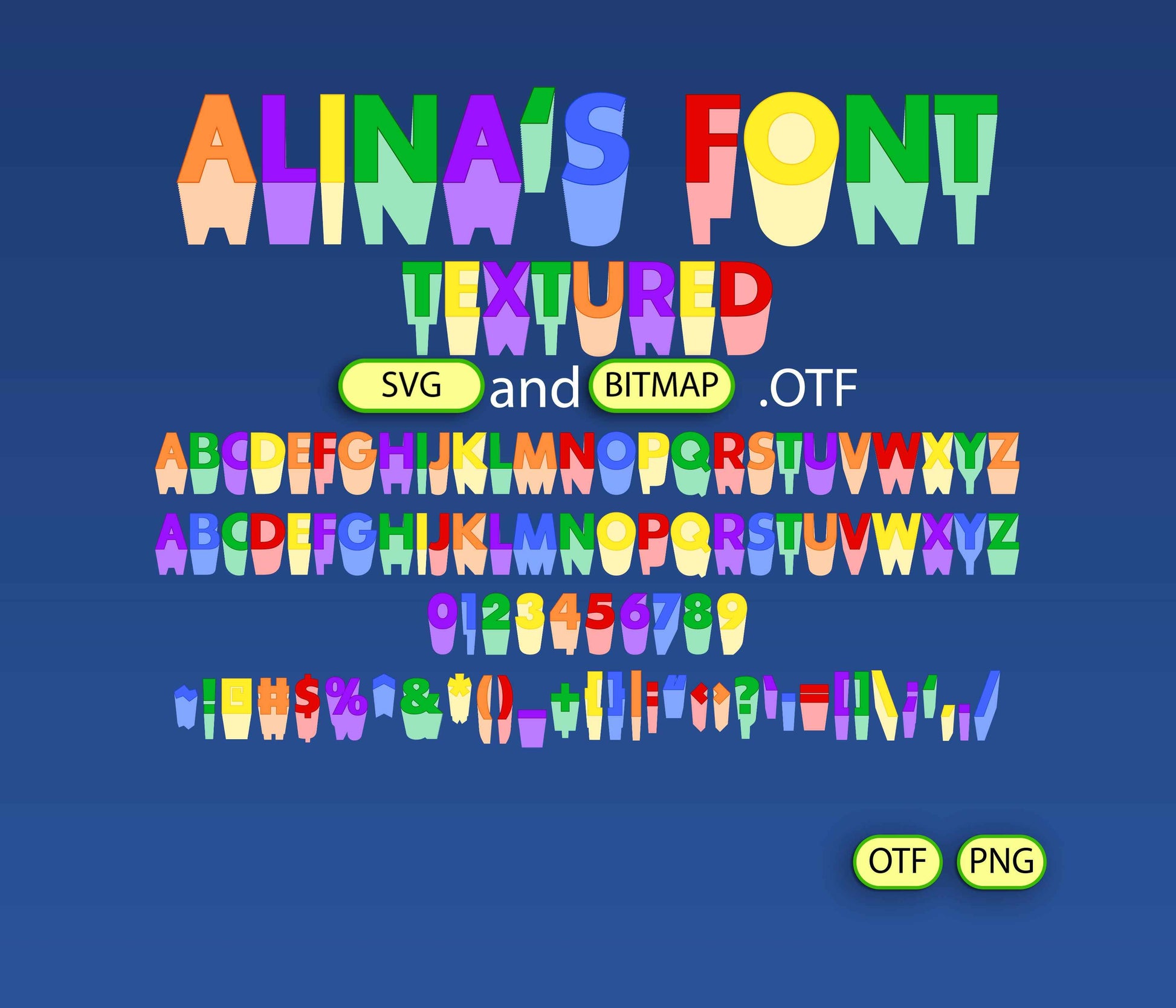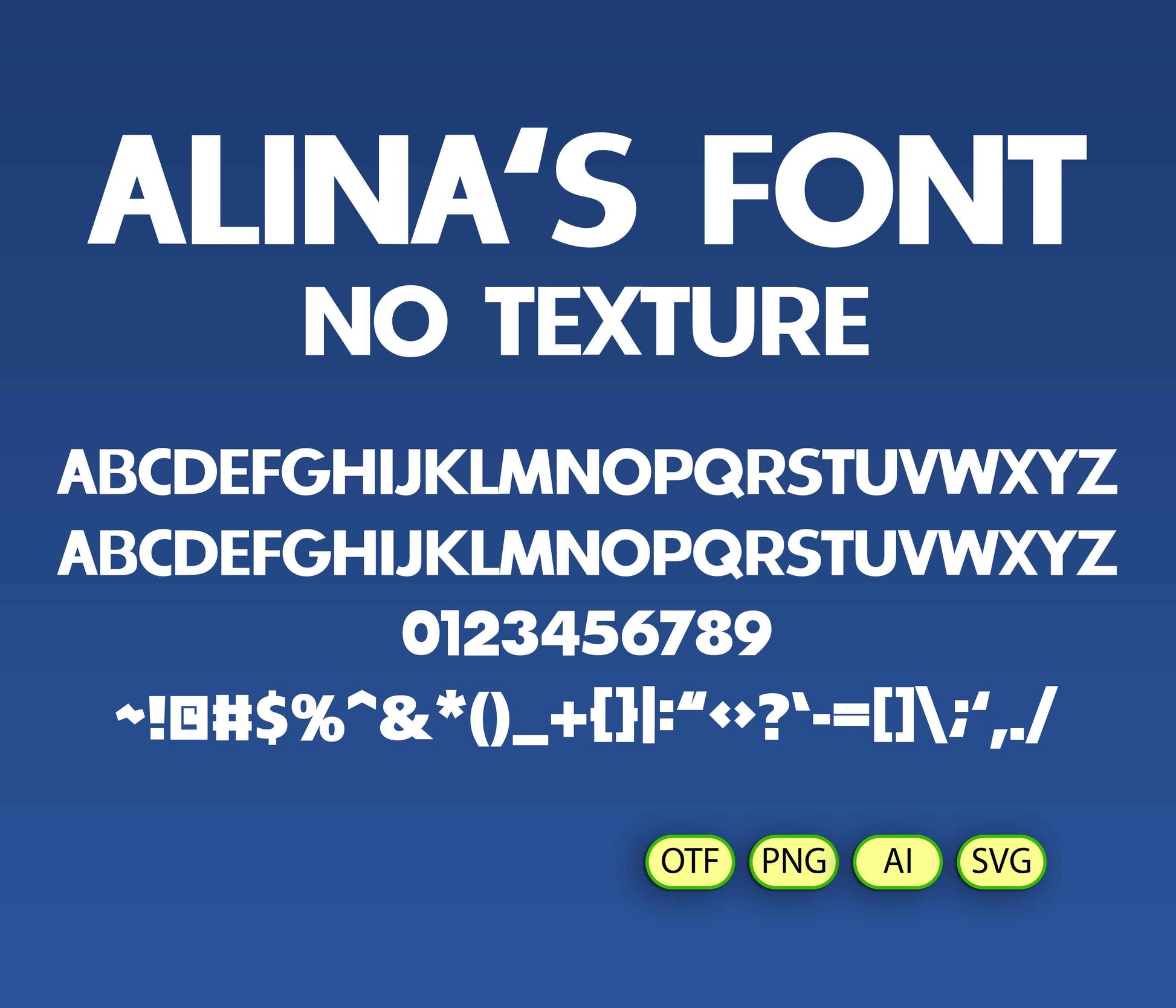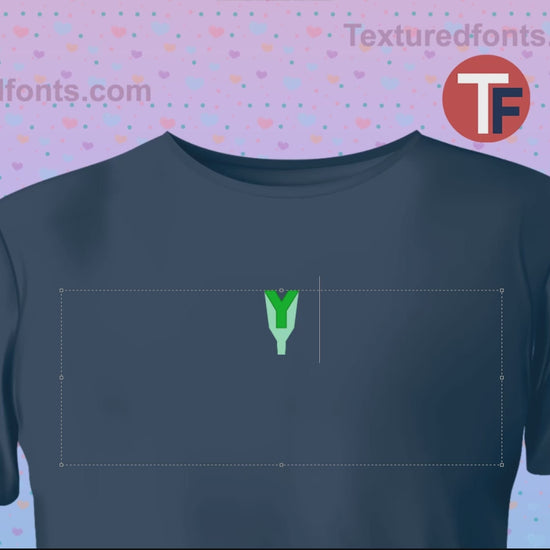
VividBlock Font Textured
Unleash Creativity with the VividBlock Font
Bring vibrant energy and modern aesthetics to your projects with our VividBlock-inspired font. Perfect for designers, artists, and marketers, this font captures the playful and geometric style of color blocking. Whether you're creating promotional materials, designing engaging web content, or adding flair to personal projects, our VividBlock font ensures your creations stand out with stylish simplicity and a splash of color.
Our VividBlock font features clean, geometric shapes combined with bold, solid colors that capture the minimalist yet striking nature of color block design. This typeface is incredibly versatile, suitable for a wide array of creative endeavors:
To ensure broad usability and adaptability, our VividBlock-inspired font includes both textured and non-textured variants. The non-textured version is particularly valuable, ensuring compatibility with all types of software, including Canva. This makes the font accessible and easy to use for everyone from professional graphic designers to hobbyists, enhancing its usability across various platforms and projects.
Our VividBlock font not only captures the essence of contemporary design trends but also invites you to infuse your projects with a dynamic and modern aesthetic. Whether you're aiming to make a bold statement in your marketing materials or looking to add a modern twist to personal projects, this font allows you to communicate with impact and style. Ready to block out the mundane and color in the extraordinary? Let this font be your tool for crafting visually stunning and creatively fulfilling designs.